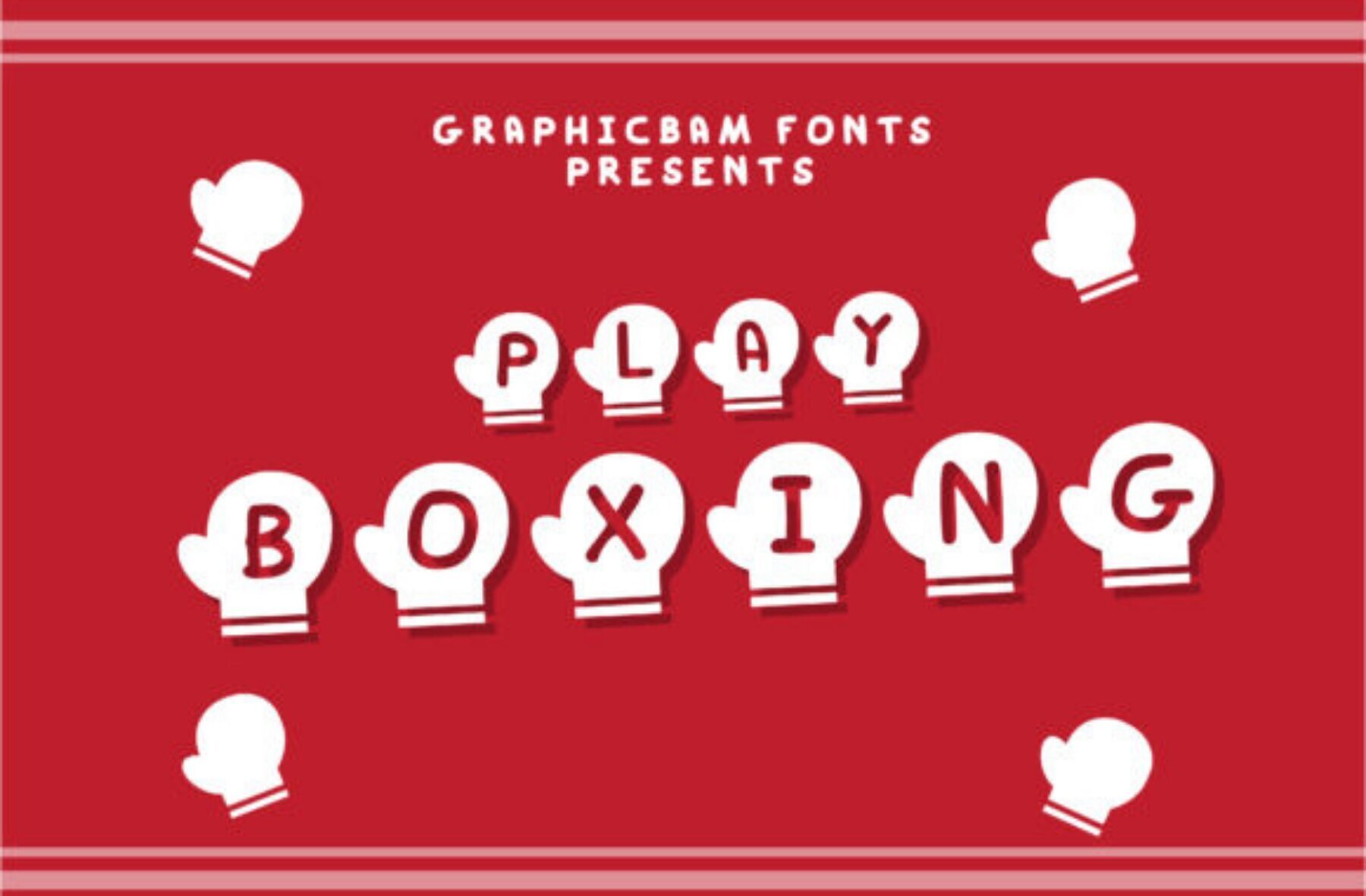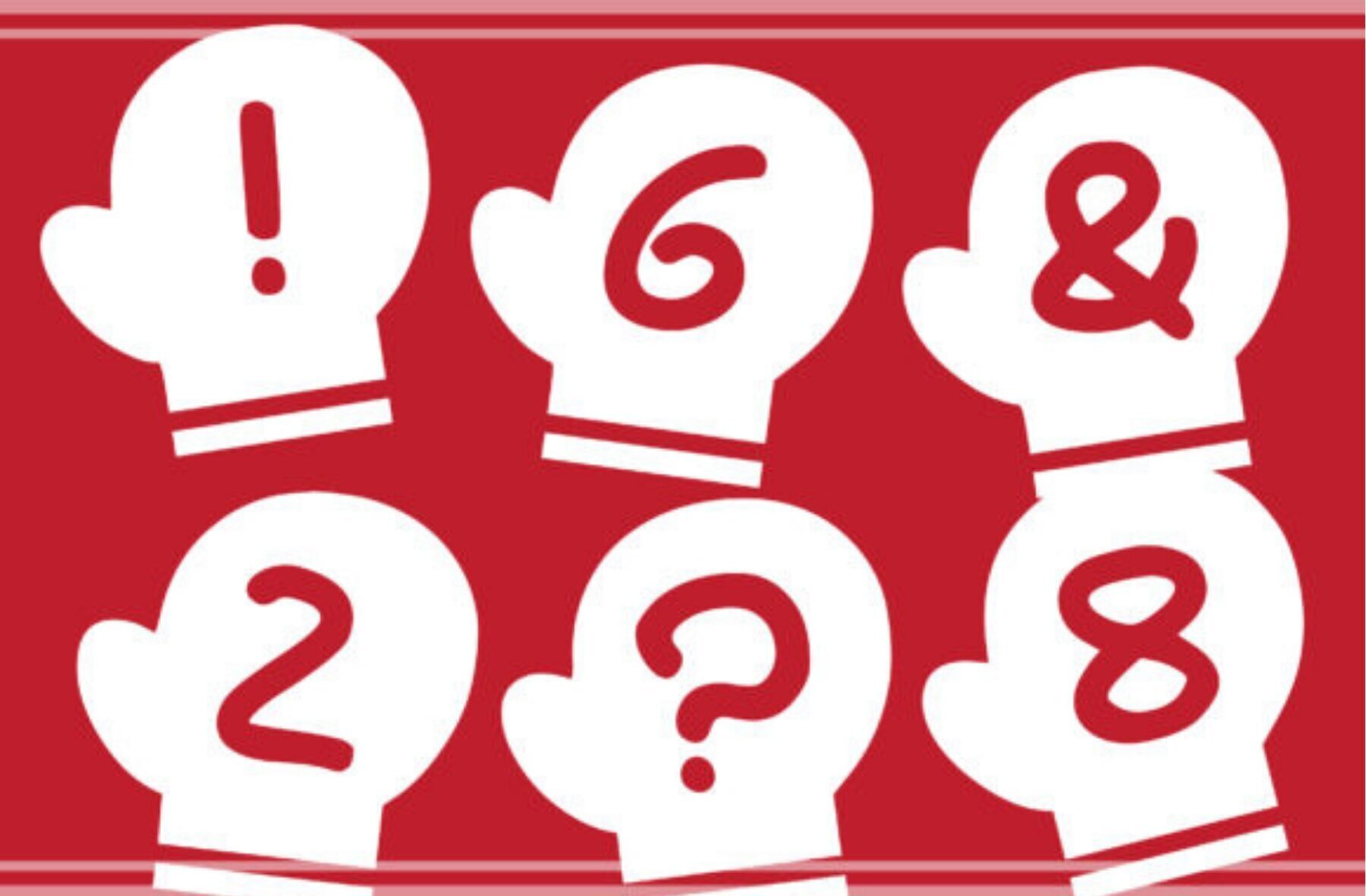
Play Boxing Font
Play Boxing Regular
Dive into creative projects with the vibrant Play Boxing decorative font. With its unique and eye-catching design, this font becomes the ideal choice for crafting, digital design, presentations, and creating memorable greeting cards. Its bold, engaging style captures attention and adds a playful touch to any project. Bring charming character and fun to your designs with Play Boxing, a must-have for any creative enthusiast.Play Boxing Decorative Font